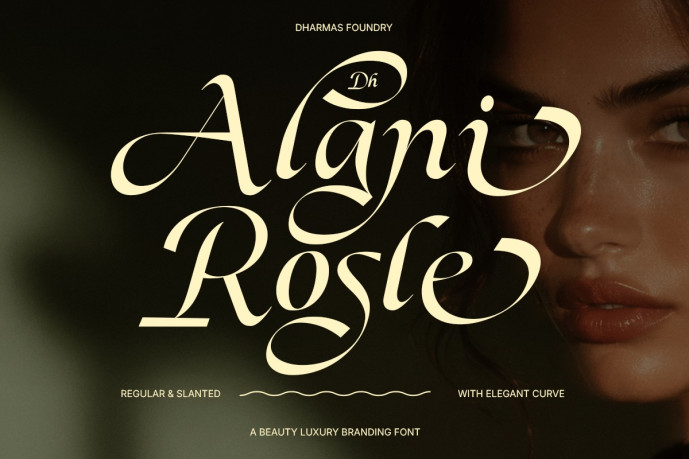
Alani Rosle – Beauty Luxury Brand Font
Dh Alani Rosle is a luxurious brand typeface family inspired by the graceful curves of blooming flower petals. Featuring elegant, high-contrast serif letters, flowing elastic bands, and refined details, it offers a timeless beauty that perfectly complements high-end branding and editorial design. Its expressive alternations and ligatures create sophisticated typography with a distinctive handcrafted feel, giving each word a refined appearance.
graceful and memorable.
With 1 style (Bold), Dh Alani Rosle offers exceptional flexibility for everything from delicate luxury branding to bold editorial headlines. It also includes over 60 luxury variants and ligatures, a variable font, a type specimen (PDF), multilingual support, uppercase and lowercase letters, numbers, punctuation marks, and symbols, giving designers complete creative freedom. Perfect for beauty brands, skincare packaging, cosmetics, fashion brands, luxury logos, magazines, wedding stationery, perfume brands, jewelry, boutiques, cafes, invitations, social media, photography, product packaging, and elegant visual identities.